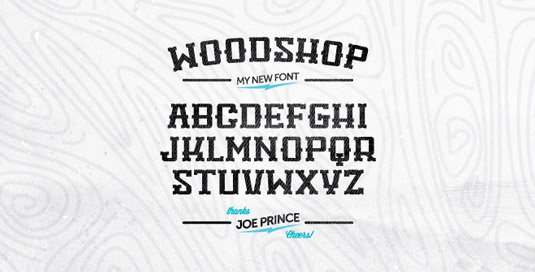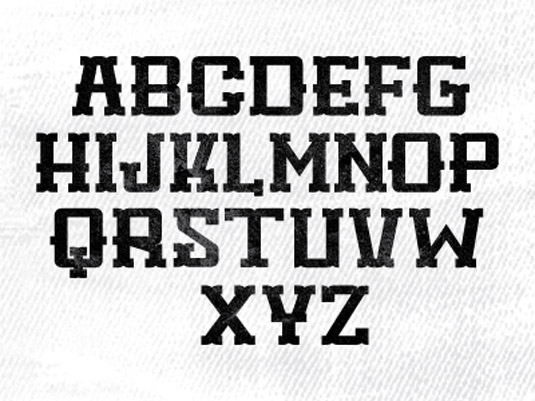
Font of the day: Woodshop
Woodshop by Nick Slater
Earlier this year, Pennsylvania-based graphic designer Nick Slater released this Woodshop typeface, which he generously offers as a free download. The slab font comes complete with a full set of upper and lowercase letters, numbers and special characters.
Slater comments on his design on Dribbble: "If you hit shift you get a high cross bar h,k,y,r too!"